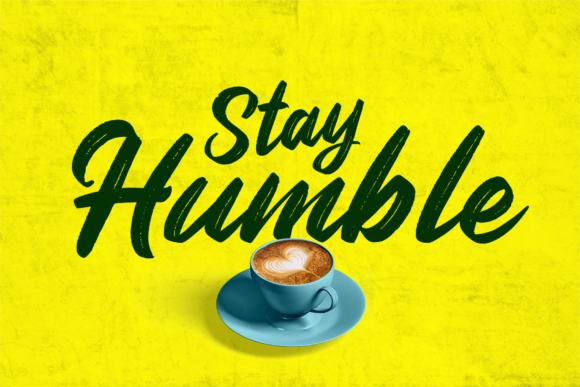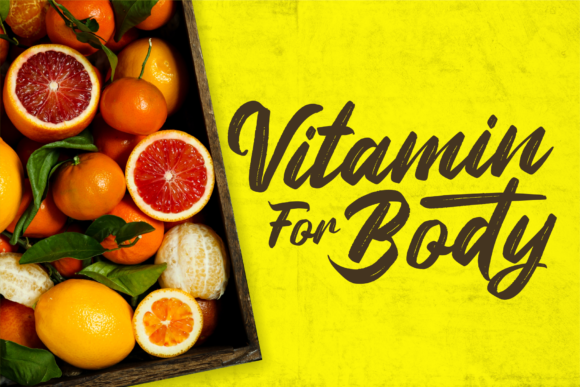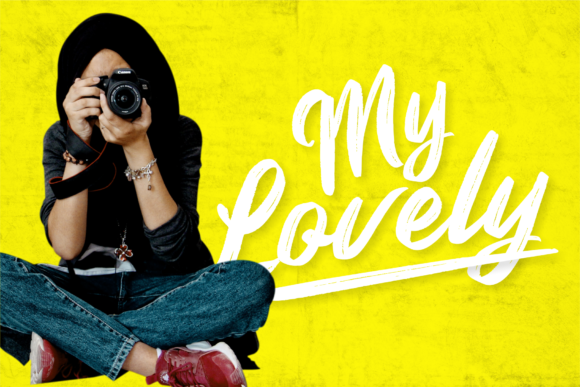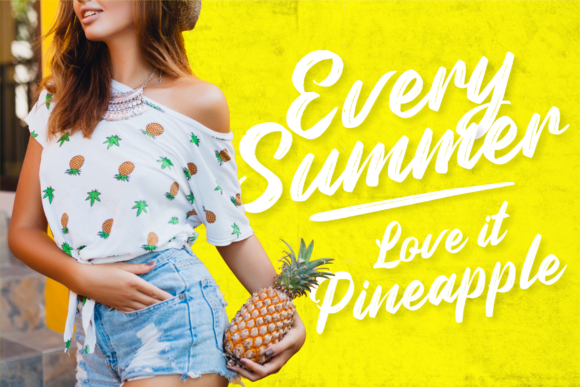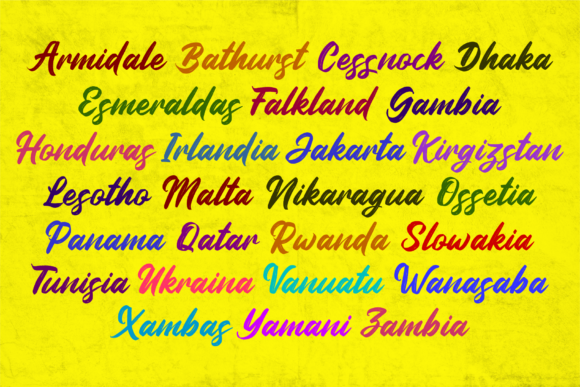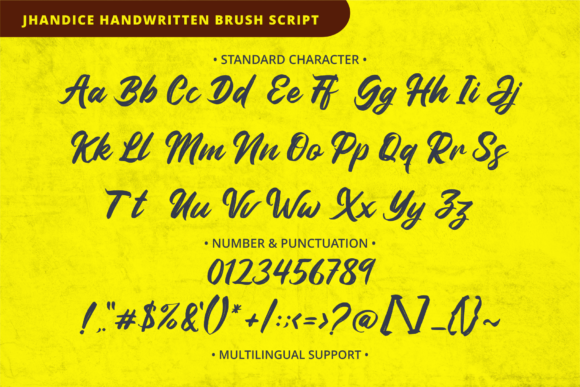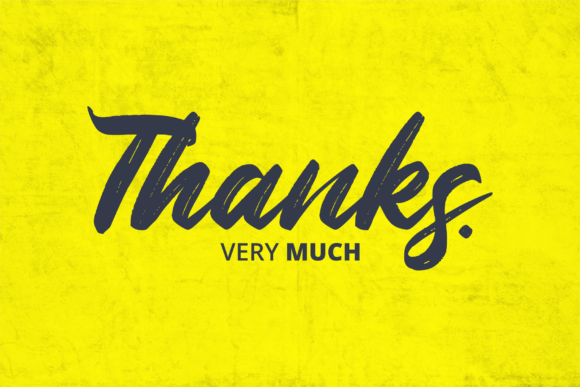
Jhandice Font
About Jhandice Font
Jhandice is a textured and modern handwritten font. It features a brushed style and it is great for adding an urban style to any design!